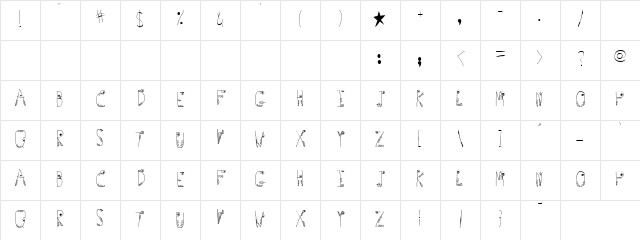
Sudden Death Regular
Design Context for Sudden Death Typeface
Sudden Death leans into the macabre with letterforms designed to disturb and intrigue in equal measure.
Ideal for Halloween projects, horror film titles, haunted house signage, and dark editorial design.
Font Pairing: Pair with a clean neutral sans-serif for body copy to let Sudden Death's character lead without overwhelming the composition.
Pro Tip: Sudden Death works best as a headline or focal element. Pair it against plain, neutral body text to amplify the contrast.